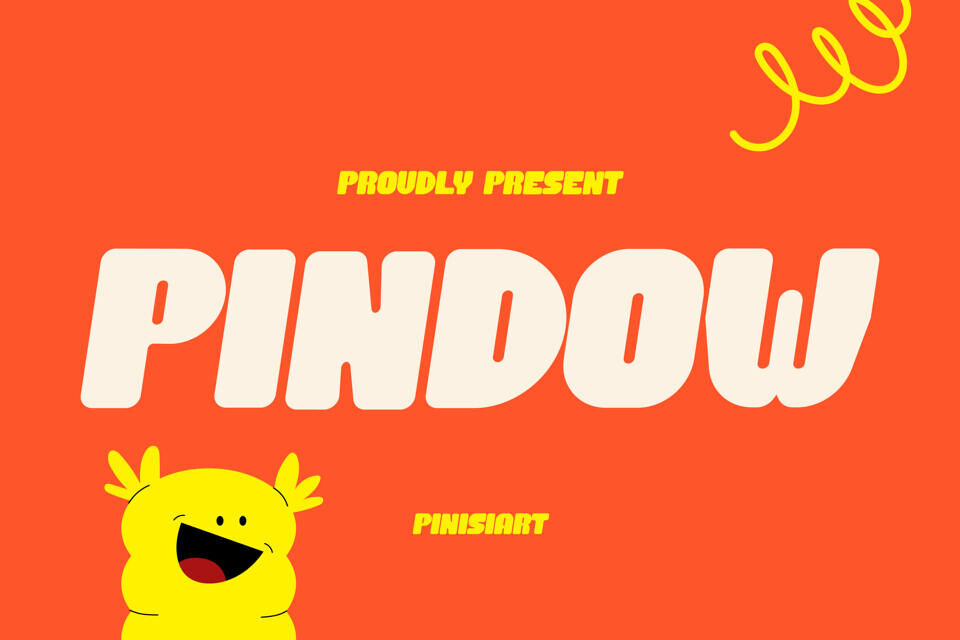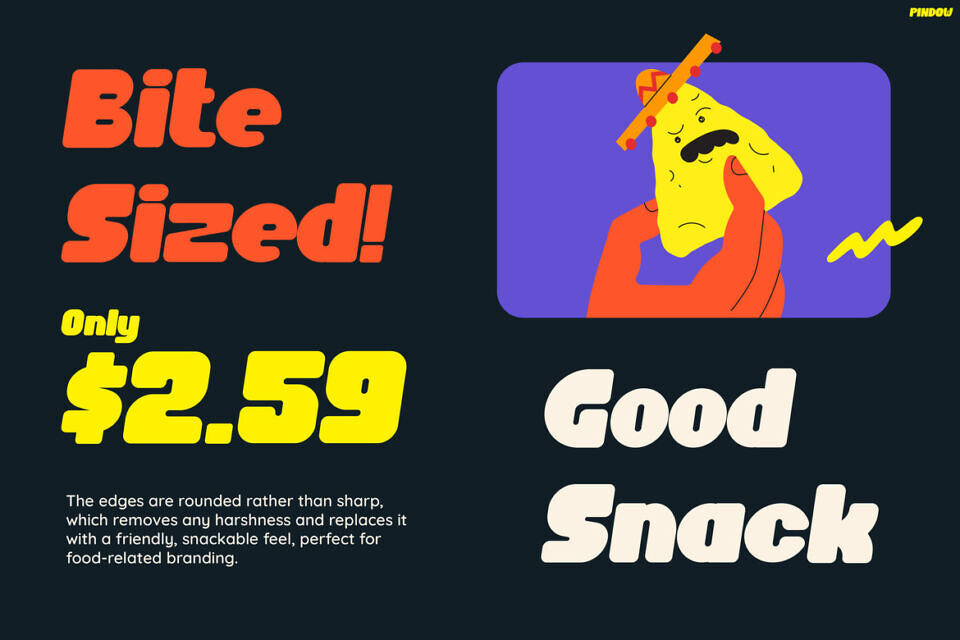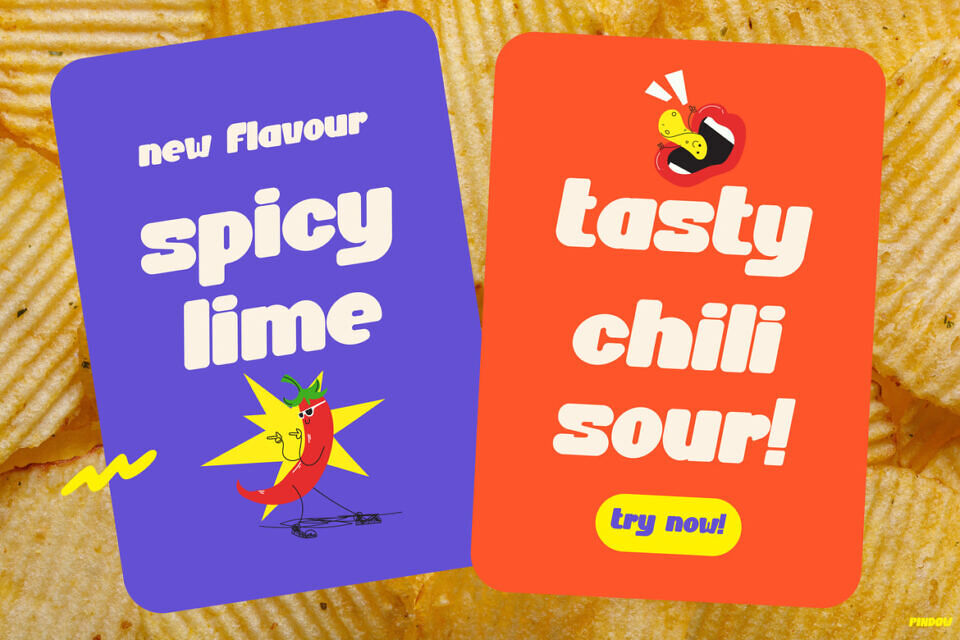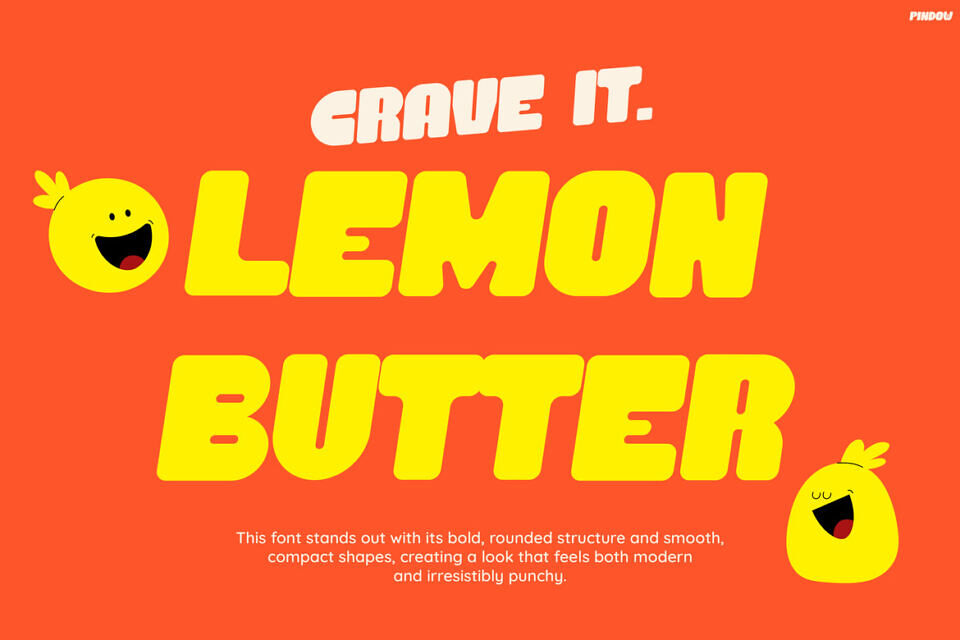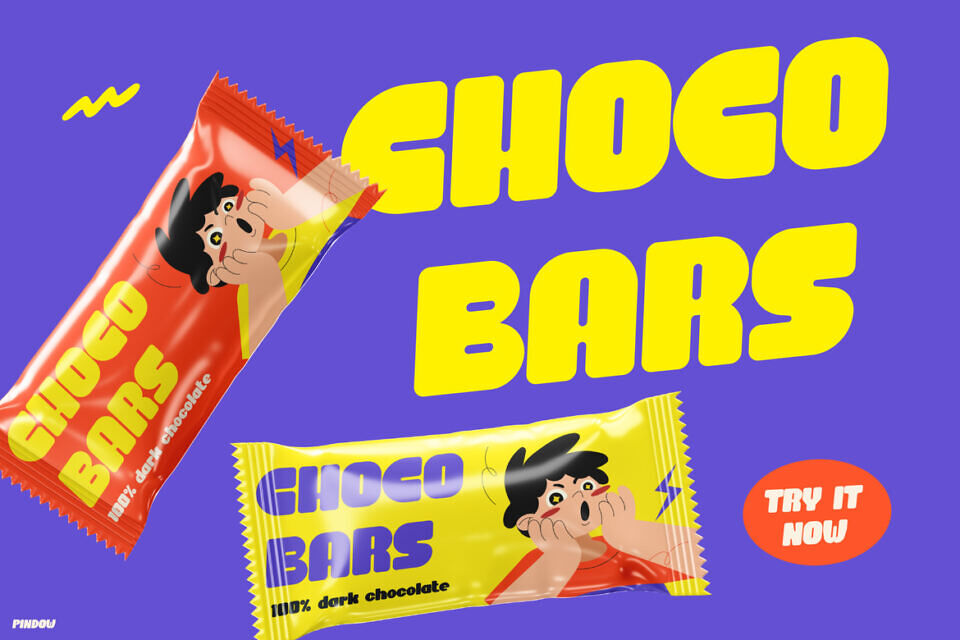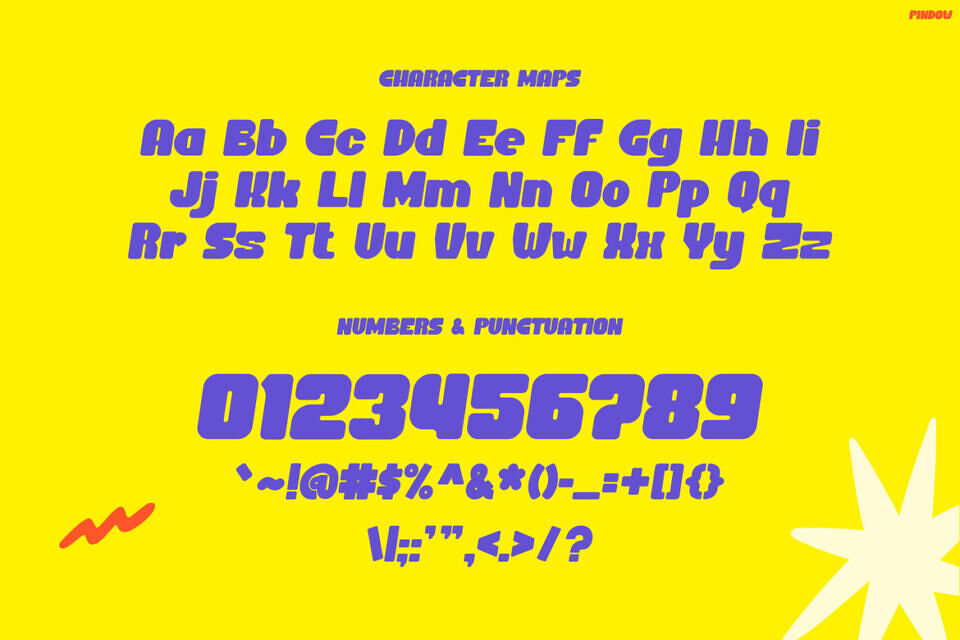
Pindow is a bold, eye-catching font with curved lines and soft edges. Its playful vibe is instantly engaging and memorable. The rounded letters create a friendly feel that appeals to all ages, while the thick lines ensure it remains readable in busy layouts.
This lively font adds emotional impact to designs, making them more dynamic and attention-grabbing. Its energetic style is perfect for creating a lasting impression.